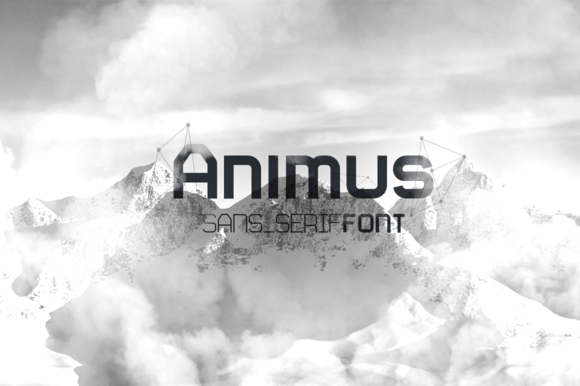
The Perfect Font for Your Next Design Project
Have you ever been stuck in the middle of a design project, staring at a blank page, and wondered what font to use? The struggle is real, but it doesn’t have to be. For designers like you, finding the right font can be a game-changer. That’s why we’re excited to introduce you to Animus Font, a sleek sans-serif typeface that’s perfect for a variety of design needs.
With its inspiration from technology, geometry, and minimalism, Animus Font is well-suited for designers who want a clean and modern look. It comes in three weights: Animus Regular, Animus Light, and Animus Bold, giving you the flexibility to choose the perfect weight for your project. Whether you’re using it as body text or as a display font, Animus Font is a valuable addition to any designer’s toolkit.
Animus Font Key Features
- Font Family: Animus is a sans-serif font family designed for modern and minimalist designs.
- Character Set: Includes a wide range of characters, including Latin, Cyrillic, and Greek alphabets, making it suitable for multilingual designs.
- Unique Characteristics: Animus features a clean and geometric design, with subtle rounded edges and a neutral color palette, making it ideal for corporate branding, digital products, and editorial content.
Designer Review: Animus Font
Overall, I found the Animus Font to be a unique and stylish addition to any design project. It works well for✨:
- Creating a sense of sophistication and elegance, making it perfect for high-end branding and luxury products.
- Adding a touch of modernity and futurism to designs, which can be especially useful for tech and gaming-related projects.
- Providing a versatile font that can be used for a wide range of applications, from body text to headings and titles.
However, I did encounter some limitations with the Animus Font, including:
- ⚠️ Limited character set and language support, which may not be suitable for projects that require a wide range of languages.
- ⚠️ Some users may find the font to be too bold or overpowering, which can be a concern for designs that require a more subtle approach.
Overall, I would recommend the Animus Font to designers who are looking for a unique and stylish addition to their projects. However, it’s essential to carefully consider the limitations and ensure that the font is suitable for the specific project requirements.
Tips for Getting the Most Out of Animus Font
Use Animus Font to add a touch of elegance and sophistication to your designs.
Pair it with bold colors and striking graphics to create a visually appealing design.
Experiment with different font sizes and styles to create a unique look.
Use Animus Font for:
Business cards and marketing materials
Book covers and magazine layouts